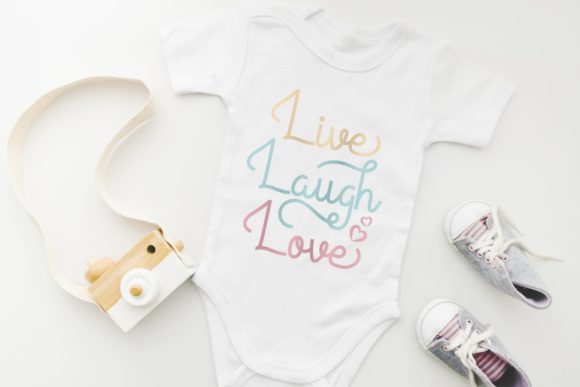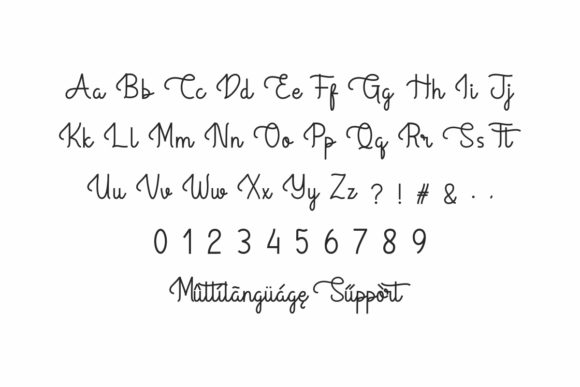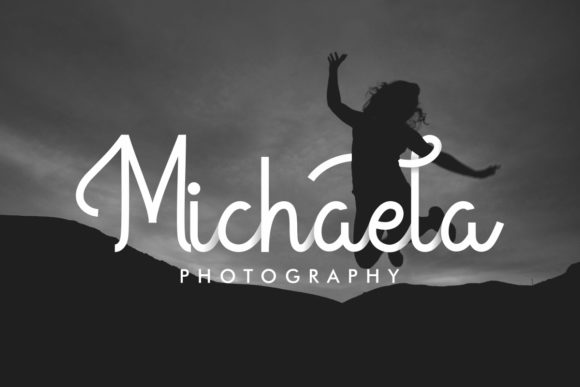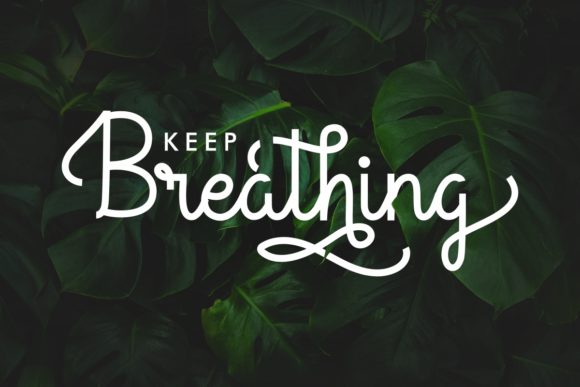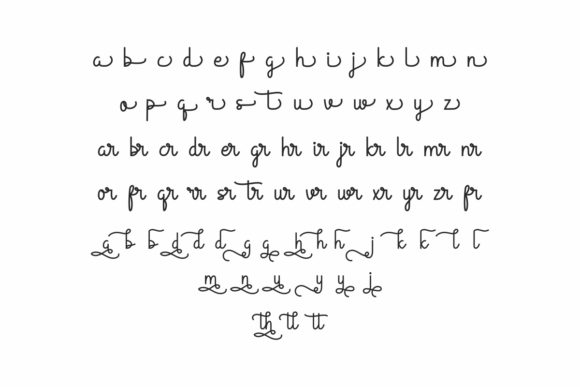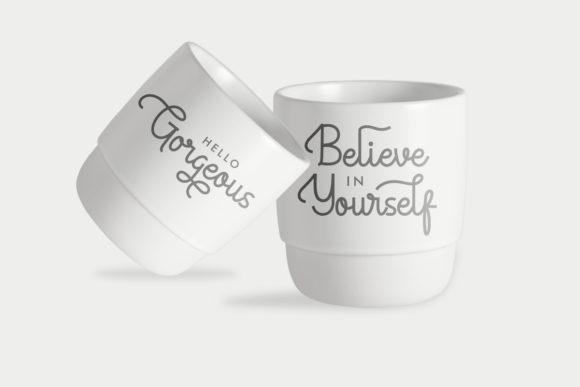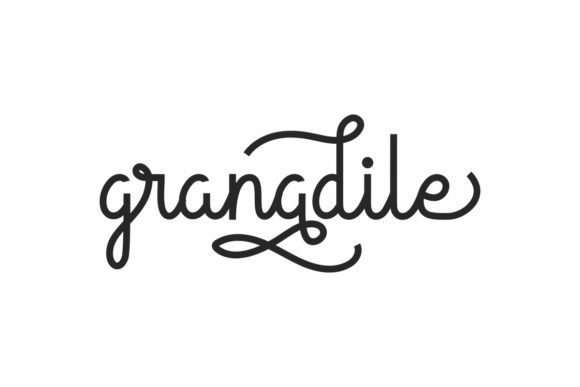
Introducing Granadile Font: Elevate Your Designs with Elegance and Flair
In the world of typography, a font can make or break a design. For crafters, designers, and creative enthusiasts, finding the perfect typeface that embodies elegance, sophistication, and a touch of personality is a constant quest. This is where Granadile Font comes into play—a delicate, elegant, and flowing handwritten font that is poised to transform your creative projects into stunning visual masterpieces.
The Essence of Granadile Font
Granadile is not just any font; it’s a beautifully crafted typeface that exudes a sense of refinement and grace. Its delicate strokes and elegant flow make it an ideal choice for designers looking to add a touch of sophistication to their work. Whether you’re crafting a logo, designing a wedding invitation, or creating engaging content for your blog or social media, Granadile Font is versatile enough to match a wide pool of designs.
Key Features of Granadile Font
- Delicate and Elegant: Granadile boasts a unique elegance that can elevate any design.
- Flowing Handwritten Style: Its flowing nature gives it a dynamic and personal touch.
- Well-Balanced Characters: Each character is meticulously designed to ensure harmony and balance in your designs.
- PUA Encoded: Enjoy easy access to all glyphs and swashes, allowing for greater creativity and flexibility.
Why Choose Granadile Font?
For designers and crafters, the allure of Granadile Font lies in its ability to bring a sense of life and vibrancy to any project. Its elegant flow and delicate nature make it perfect for:
- Wedding and Event Invitations: Add a touch of elegance and romance to your invitations.
- Branding and Logos: Stand out with a sophisticated and memorable brand identity.
- Blogging and Social Media: Elevate your content with a font that speaks of refinement and style.
- Packaging and Product Design: Give your products a premium feel with Granadile’s elegant touch.
Working with Granadile Font
One of the best features of Granadile Font is its PUA (Private Use Area) encoding. This means that accessing the additional glyphs and swashes is straightforward, allowing you to experiment and play with different styles without hassle. Whether you’re a seasoned designer or a crafting enthusiast, Granadile is designed to be user-friendly, ensuring that you can focus on the creative aspect of your project.
Tips for Maximizing Granadile’s Potential
- Experiment with Swashes: Don’t be afraid to try out different swashes and glyphs to add a personal touch to your designs.
- Mix and Match: Combine Granadile with other fonts for a unique contrast that can make your design pop.
- Play with Colors: Granadile looks stunning in a variety of colors, so experiment to find the perfect hue for your project.